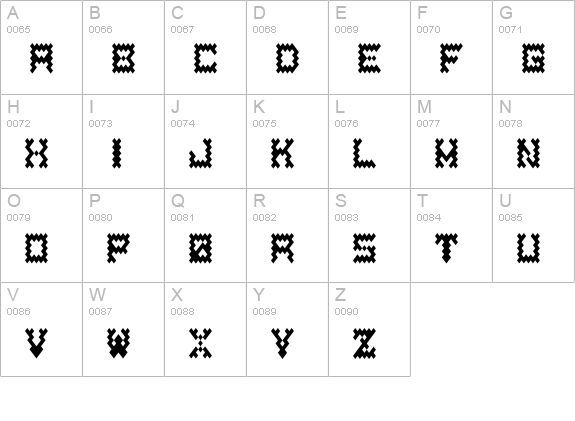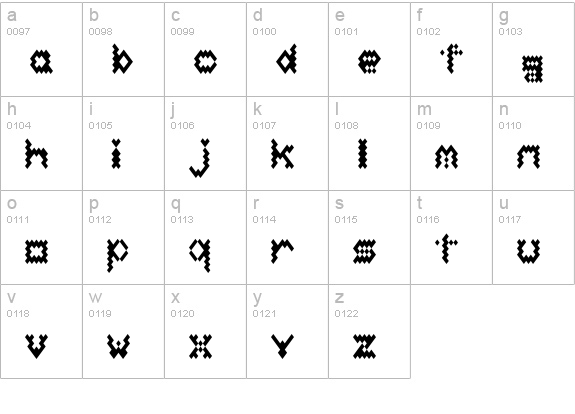
BellowsAL Font Details
BellowsAL font is a beautiful and elegant typeface that exudes a sense of sophistication and style. With its sleek lines and modern design, this font is perfect for adding a touch of class to any project. The BellowsAL font is versatile and can be used for a wide range of purposes, from branding to invitations to social media graphics. What sets BellowsAL font apart is that it is available for free download at FontsMarket.com. This means that you can easily access this stunning font without having to spend a dime. Whether you're a professional designer or just someone looking to spruce up your documents, BellowsAL font is a fantastic choice that won't break the bank. Download it today and elevate your designs with this sophisticated and stylish typeface.